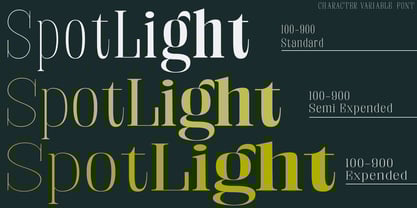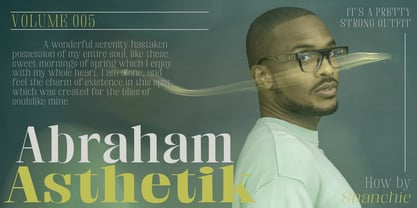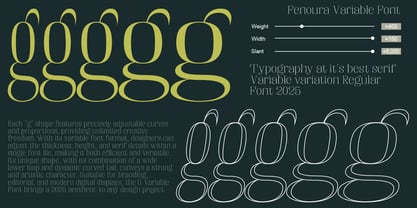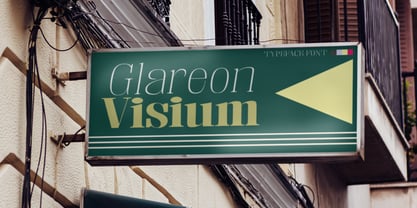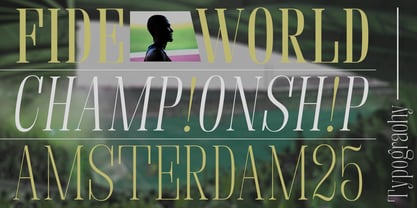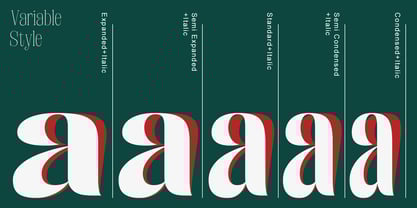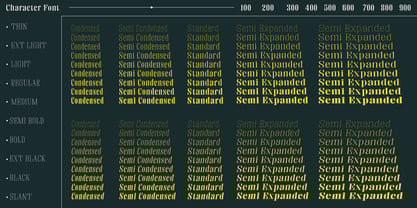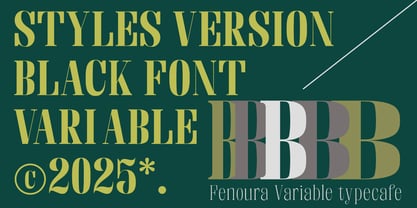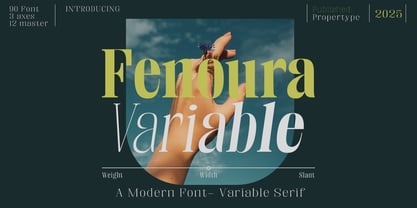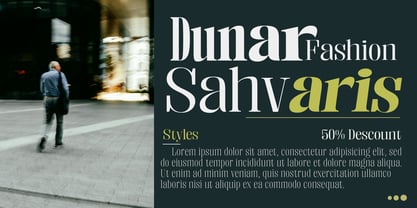
Fenoura
The Fenoura Font Family was designed by Nadia Auliana and published by Propertype. Fenoura contains 180 styles and family package options. More about this family
Fenoura Serif features high contrast, strong ink adhesion, sharp shapes, and clean cuts to create a luxurious and elegant feel with a distinctive look. Each typeface has a warm personality and a contemporary look. With a variety of different styles, you can choose the best result for your design. You can vary the feel of your design, from subtle to bold, to the most striking style. Fenoura Serif is a brilliant choice for branding, identity design, editorial design, logo design, display and packaging design, and more.